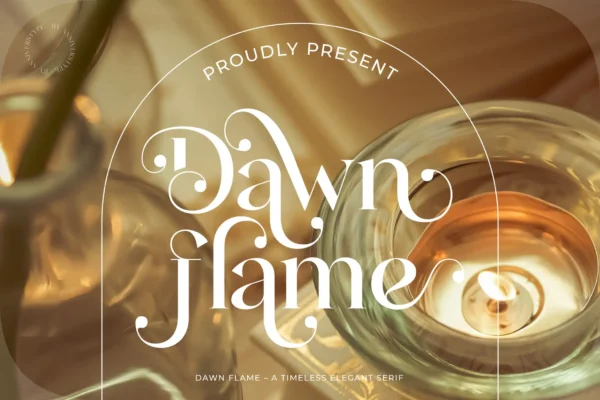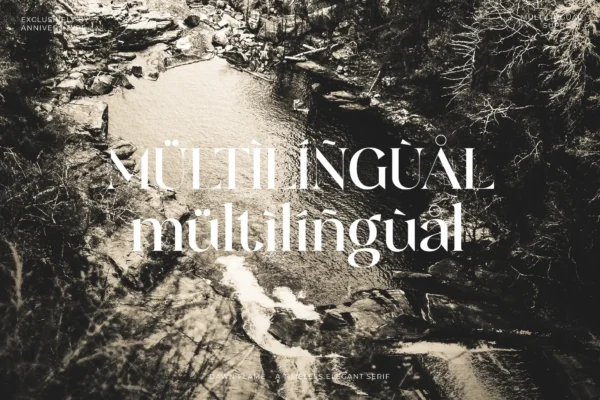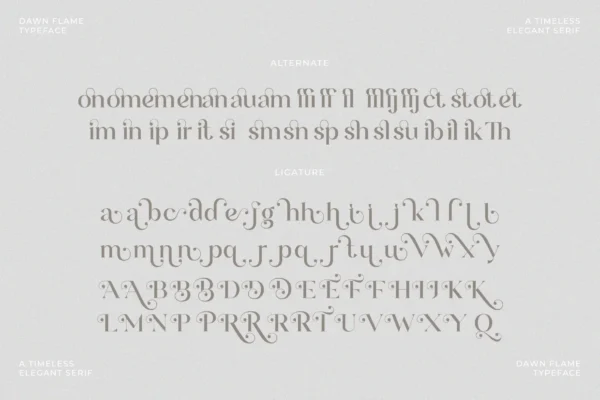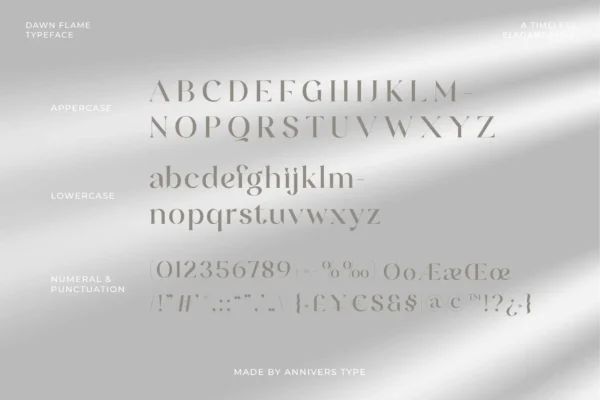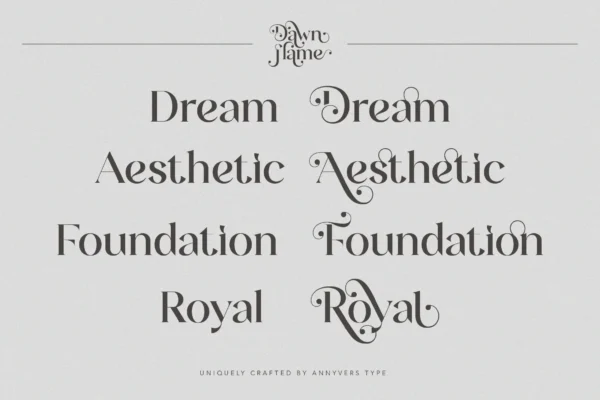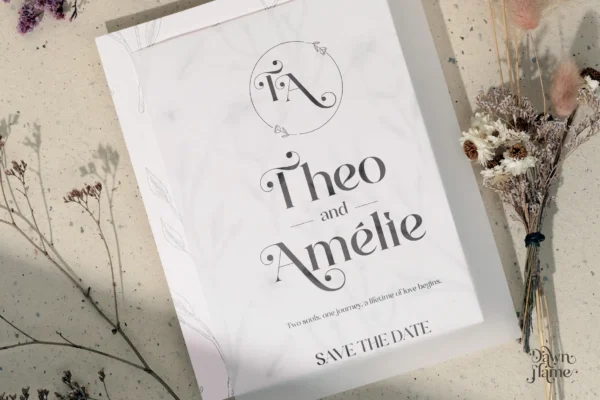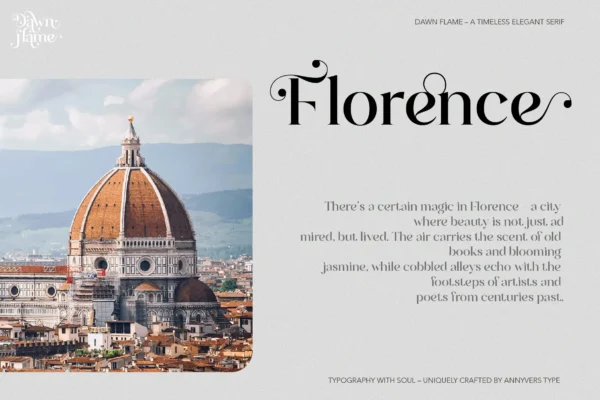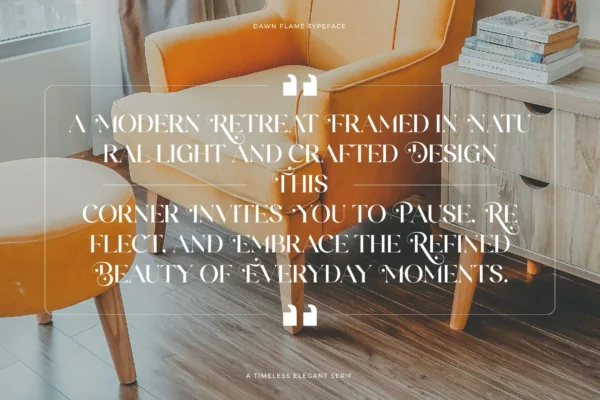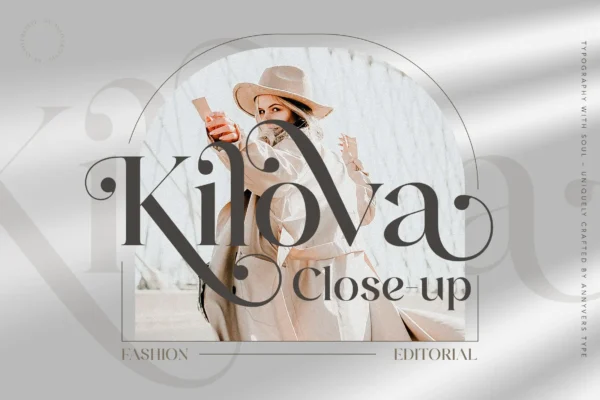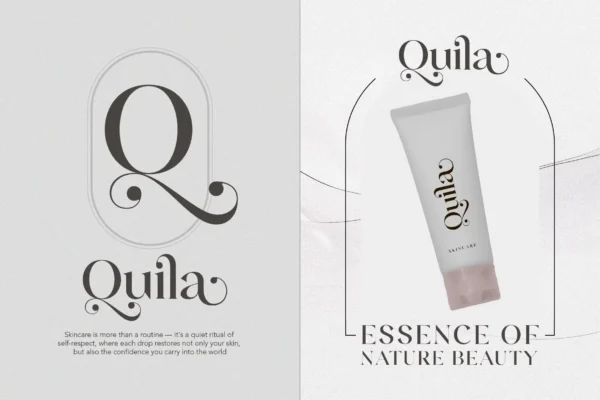
Dawn Flame – A Timeless Serif Font
Dawn Flame is a serif typeface that perfectly balances timeless appeal with sophisticated grace. Featuring elegant curves and signature swashes, Dawn Flame infuses a sense of refinement into any project it graces.
This font is an excellent choice for creating boutique branding, designing editorial spreads, crafting wedding stationery, or developing luxury packaging. It offers a character that is both powerful and feminine, communicating a message of style and class. The high contrast and artistic details make it perfectly suited for creating memorable headlines, distinct logos, and compelling visual compositions.
Dawn Flame showcases remarkable versatility, fitting seamlessly into various aesthetics from clean modernism to lavish romanticism. This adaptability ensures your work achieves a unique look that is both classic and contemporary.
Enhance your projects with Dawn Flame—a serif typeface designed to radiate elegance and charm.
Features:
- Uppercase & lowercase letters
- Numbers & punctuation
- OpenType capabilities (ligatures & alternates)
- Multilingual Support